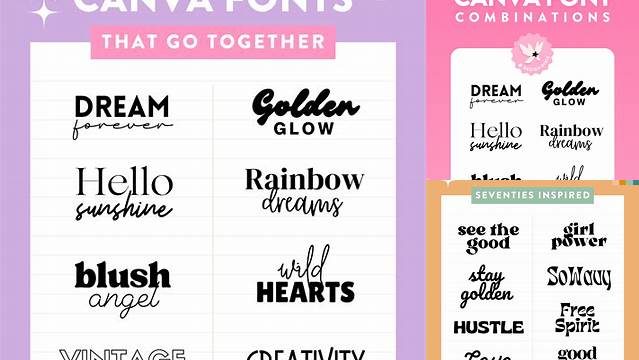
Canva Fonts: Your Guide To The Best For Logos
Hey design enthusiasts! If you're diving into the world of logo creation, you know that choosing the right font is like picking the perfect outfit – it can make or break the entire look. And when you're using Canva, a user-friendly platform packed with amazing features, the font selection can feel a bit overwhelming. Fear not, because we're about to embark on a typographic adventure to uncover the best Canva fonts for logos, ensuring your brand makes a stellar first impression. Let's dive in!
Why Font Choice Matters for Your Logo
Alright, guys, before we get into the nitty-gritty of specific fonts, let's chat about why your font choice is so darn important. Think of your logo as the face of your brand. It's the first thing people see, and it sets the tone for everything else. The font you choose plays a massive role in communicating your brand's personality, values, and overall message. Whether you're aiming for a sleek, modern vibe or a playful, vintage feel, the font can make or break your ability to connect with your audience. It needs to be readable at various sizes, reflect your brand's identity, and be memorable enough to stick in people's minds. Choosing the right font isn't just about aesthetics, it's about creating a recognizable and trustworthy brand image that resonates with your target market. It’s like a silent ambassador, speaking volumes before you even utter a word.
For example, imagine a law firm using a bubbly, comic-style font. Doesn't quite fit, does it? Conversely, a toy store using a super serious, corporate font wouldn't scream fun and excitement. Get it? So, the key takeaway here is that your font needs to align perfectly with your brand's character. You have to ask yourself some key questions. What message do you want to send? Who is your target audience? And, what kind of feeling do you want to evoke? The font is the silent communicator of your brand. The perfect font is not just a visual element; it is a strategic tool. It has the power to influence perceptions, build recognition, and ultimately, drive your brand's success. This is the power of typography, and when harnessed correctly, it's a game-changer in the world of branding. The goal is to leave a lasting impact and position your brand for long-term success.
Fonts are more than just letters; they are a visual language that speaks to your audience on a subconscious level. Different fonts convey different emotions and associations. Serif fonts, with their small decorative strokes, often feel traditional and trustworthy, making them a great choice for industries like finance and law. Sans-serif fonts, on the other hand, are clean and modern, perfect for tech companies and contemporary brands. Script fonts add a touch of elegance and sophistication, while display fonts are designed to capture attention with their unique and often bold designs. Getting the right font conveys trust and authenticity with customers. Every curve, every stroke, and every space between the letters work together to create a cohesive visual identity that sets your brand apart.
Top Canva Fonts for Different Logo Styles
Alright, now for the fun part: the fonts! Canva offers a vast library of fonts, so let's break down some of the best Canva fonts for logos, categorized by style, to help you find the perfect match. Get ready to explore and discover some typographic treasures.
1. Modern & Minimalist Logos
For those of you wanting a clean, contemporary look, these fonts are your go-to:
- Montserrat: A versatile sans-serif font known for its clean lines and readability. It's a great all-rounder that works well in various contexts. Its geometric structure gives it a modern feel, while its wide range of weights and styles offers plenty of flexibility. This makes it perfect for logos aiming for a sophisticated yet approachable look.
- Poppins: Another excellent sans-serif option that balances simplicity and elegance. Poppins is a highly readable font, making it ideal for logos that need to be clear and easily understood, even at smaller sizes. Its slightly rounded terminals give it a friendly touch, making it versatile for both digital and print applications.
- Raleway: A stylish sans-serif font that conveys a sense of sophistication. It’s a perfect choice for brands seeking a more refined appearance, with its elegant letterforms and subtle details. Raleway offers a range of weights, making it easy to create a balanced and visually appealing logo. Its narrow letter structure makes it incredibly effective for logos that need to fit the space, without losing the impact.
These minimalist fonts are perfect for tech startups, fashion brands, and any company that wants to project a modern and sleek image. They're all about simplicity, clarity, and a touch of understated elegance. The power of minimalism allows your brand's core values and message to shine through.
2. Classic & Timeless Logos
If you are aiming for a look that lasts, here are some timeless options:
- Playfair Display: A serif font that embodies elegance and sophistication. Perfect for logos that want to convey a sense of history, heritage, or high-end quality. Its high contrast and graceful curves add a touch of classic charm, making it a favorite for luxury brands, boutiques, and creative businesses. Playfair Display is designed to work on multiple platforms and has great readability.
- Lora: Another beautiful serif font that feels both contemporary and approachable. Its balanced design and clean lines make it a versatile choice for a variety of industries. Lora offers a warm, inviting feel, making it suitable for brands wanting to project a friendly yet professional image. Lora is a great option for businesses wanting to communicate warmth and elegance, with a dash of modernity.
- Bebas Neue: A sans-serif font that's both bold and impactful. Its strong, clean lines give it a timeless appeal, perfect for logos that want to command attention. Bebas Neue works great for logos, headlines and display purposes where a bold presence is needed. It exudes a sense of confidence and simplicity, making it a top choice for brands seeking a blend of modernity and classic appeal. The font is characterized by its uppercase-only design and clean geometric shapes, which lend a bold and modern aesthetic. Bebas Neue is excellent at commanding attention and is a versatile font suitable for various applications from logos to headings.
These fonts are great for brands that want to build trust and project a sense of lasting quality. These fonts represent a careful selection that has been tested over time, establishing reliability and longevity for the brand. These fonts are known for their balanced composition, readability, and ability to adapt across different contexts. They are fantastic choices if you want your logo to transcend current trends and remain relevant for years to come.
3. Playful & Creative Logos
For brands wanting to show off their fun side, check these out:
- Pacifico: A script font that's all about fun and personality. Its flowing, handwritten style adds a friendly and approachable vibe, making it perfect for brands aiming to connect with their audience on a personal level. Pacifico is ideal for businesses wanting to communicate creativity and uniqueness. It is great for logos in the food, lifestyle, and creative industries.
- Baloo Paaji 2: A playful sans-serif font with a unique and quirky personality. Its rounded letterforms and lively design convey energy and approachability. This font is great for brands that want to appear fun and easily accessible. Baloo Paaji 2 is ideal for logos in the children's entertainment, gaming, and education industries.
- Luckiest Guy: A quirky and friendly font that exudes happiness and positivity. Its rounded shapes and whimsical details make it a fantastic choice for brands wanting to inject a bit of joy into their branding. Luckiest Guy is perfect for businesses that want to showcase a fun, upbeat personality and offers fantastic visual appeal. It's well-suited for logos, websites, and marketing materials, adding a dose of optimism to your brand.
These fonts are designed to grab attention and bring a sense of joy and creativity to your brand's identity. They are a great fit for companies aiming for something different and memorable.
Tips for Choosing the Right Font in Canva
Alright, now that you have some font ideas, here are a few extra tips to help you choose the perfect font for your logo in Canva:
1. Consider Your Brand Personality
As we've said before, your font needs to match your brand's personality. Are you professional, playful, edgy, or traditional? The font should reflect this. If you're a luxury brand, a clean serif or elegant script font might be ideal. If you are a children's brand, a friendly sans-serif or playful display font could work better.
2. Prioritize Readability
Make sure your font is easy to read at different sizes. Test your logo at both small and large scales to ensure clarity. Steer clear of overly intricate fonts that might become illegible when scaled down. A clear and legible font is crucial to communicate your brand effectively.
3. Experiment with Font Pairings
Don't be afraid to combine fonts! Pairing a bold headline font with a more subtle subheading font can create a dynamic and balanced look. Canva makes it easy to try out different font combinations. Experiment with different pairings to achieve the best visual harmony for your logo.
4. Think About Your Audience
Who are you trying to reach? What fonts resonate with them? Take into account your target audience's preferences and expectations. Researching their taste can help you narrow down your choices and select a font that appeals to them.
5. Keep It Simple
Sometimes, less is more. Avoid using too many different fonts in your logo, as this can make it look cluttered and confusing. Stick to a maximum of two or three fonts to maintain a clean and cohesive design. Simplicity can often create the most impact.
So there you have it, friends! This guide should get you started with choosing the best Canva fonts for logos. Remember, selecting the right font is a crucial step in crafting a memorable brand identity. By taking the time to consider your brand's personality, prioritize readability, experiment with different pairings, and keep your audience in mind, you can design a logo that truly represents your business and resonates with your target market. Go forth, be creative, and design a logo that stands out! Happy designing!